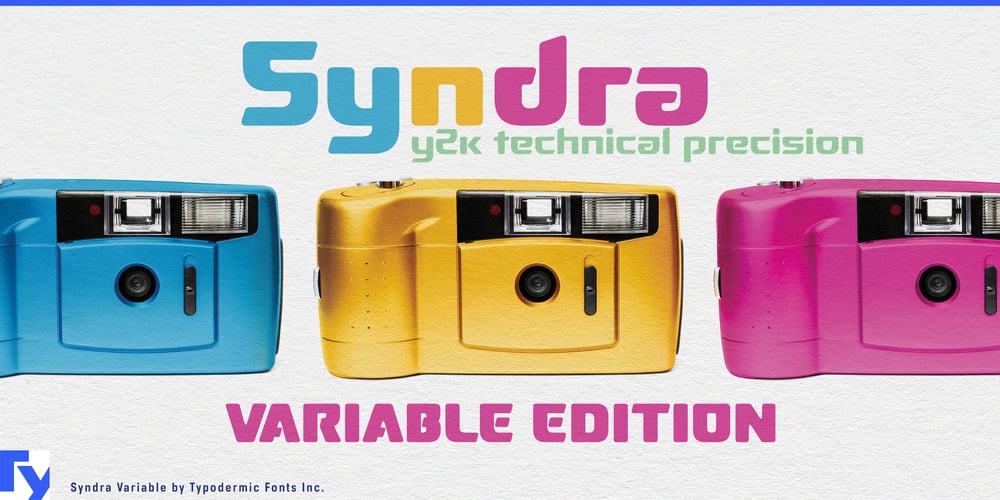
Syndra Variable Font Family was designed by Ray Larabie and published by Typodermic. Syndra Variable contains 1 styles and family package options. Syndra Variable is a typographic quantum leap. This cutting-edge typeface harnesses the power of variable font technology to propel your designs into a future where flexibility meets precision with algorithmic grace.Born from the Y2K aesthetic but engineered for tomorrow’s challenges, Syndra Variable’s letterforms seem to have emerged fully formed from a fusion reactor of design innovation. Each glyph pulsates with the cold efficiency of machine logic, yet possesses a fluid adaptability that defies static categorization. At its core, Syndra Variable is a chameleon of infinite possibilities. Its seamless weight axis transforms typography from a discrete set of choices into a continuum of expression. Glide effortlessly from whisper-thin strokes that barely kiss the page to bold declarations that command attention—and explore every nuanced weight in between. This isn’t just flexibility; it’s typographic superconductivity, allowing your designs to respond and adapt with quantum precision to every context.Don’t let the clinical perfection of its forms fool you. Syndra Variable is a tireless workhorse, armed with an arsenal of OpenType features including fractions, ordinals, and a United Nations of currency symbols. It’s equally at home discussing the molecular structure of cutting-edge pharmaceuticals as it is outlining the specs of the latest renewable energy breakthrough. But Syndra Variable’s true superpower lies in its linguistic polymathy. This font doesn’t just cross borders—it renders them obsolete. With support for an extensive array of Latin-based European languages, Vietnamese, Greek, and most Cyrillic-based writing systems, it’s a United Nations of typography, facilitating global communication with silicon valley efficiency.Choose Syndra Variable when your design needs to transcend the limitations of traditional typography. It’s the perfect choice for brands that live on the bleeding edge, for user interfaces that demand pixel-perfect scalability, or for any project that requires the ultimate in typographic flexibility and performance.So, are you ready to break free from the constraints of static typography? To explore a new dimension where form and function coalesce into a singularity of design potential? Then it’s time to deploy Syndra Variable. Because in the quantum realm of modern design, why settle for a single state when you can harness the power of infinite possibilities?